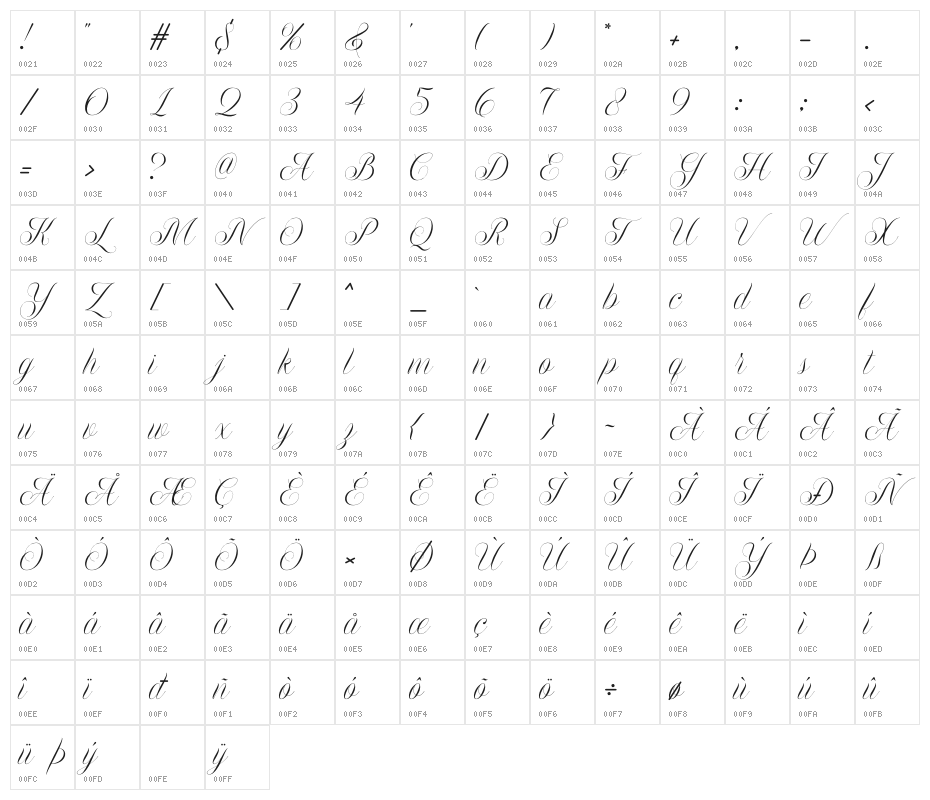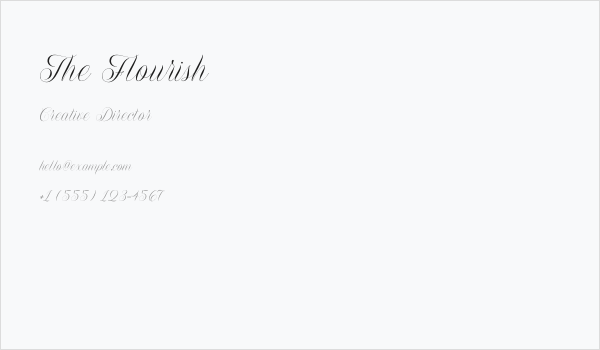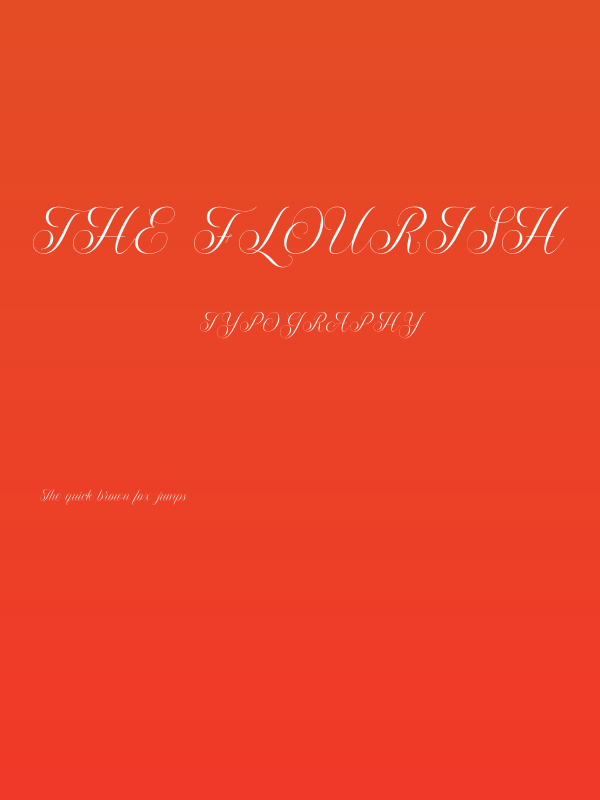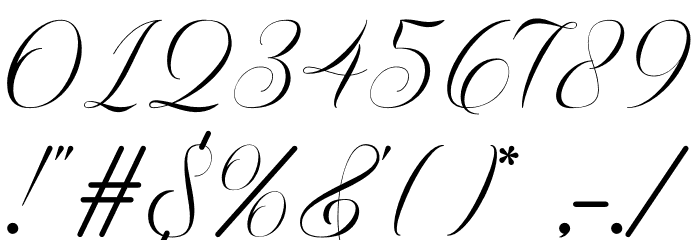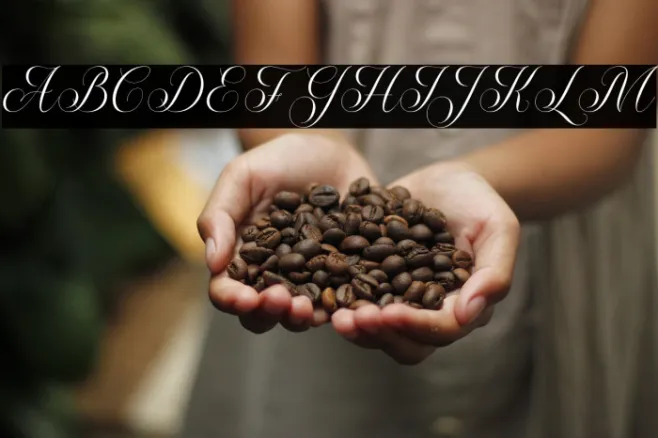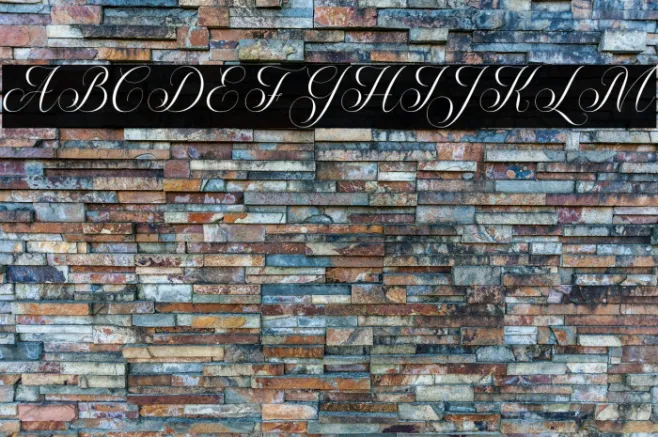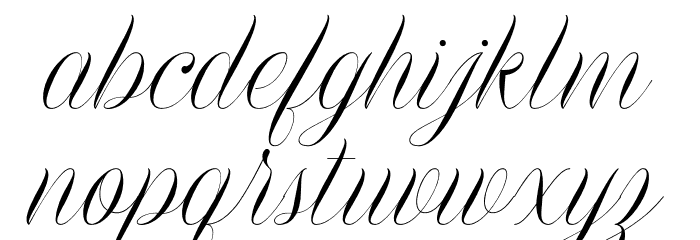
The Flourish Font
The Flourish Description
This elegant script font features flowing, interconnected letters with a classic calligraphic style. The uppercase letters are adorned with elaborate flourishes, adding a sense of sophistication and grace. The lowercase letters maintain a consistent slant, enhancing the fluidity and continuity of the text. Numbers and special characters are designed with the same attention to detail, ensuring a cohesive look across all elements. The font's delicate strokes and high contrast between thick and thin lines contribute to its refined appearance, making it ideal for formal invitations, branding, and decorative purposes.
| Use Case | Logos, Invitations, Decorative headings |
| Proposed Projects | Ideal for wedding invitations, luxury branding, elegant logos, and decorative headings. |